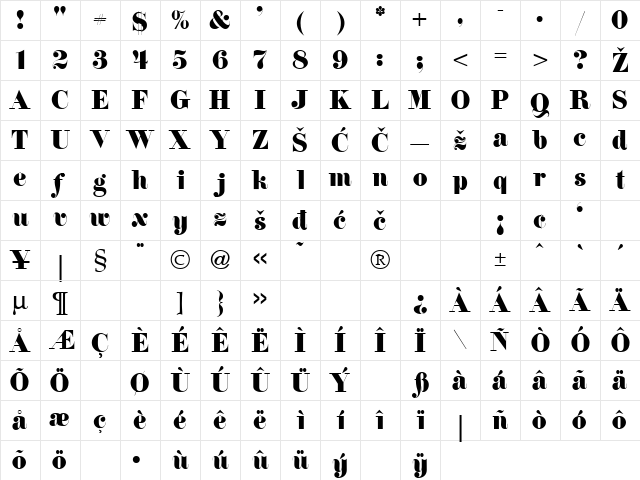
Firenze Regular
Firenze Family
Design Context for Firenze
Firenze is a composed and adaptable typeface that performs quietly and consistently across a wide range of design contexts.